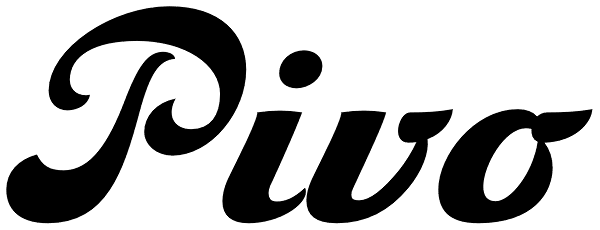
Pivo
The script font Pivo (czech word for Beer) is freely inspired by certain traditional brewery label from southern Bohemia. It is very well suited for any advertising, music, restaurant or beverage design purposes. Punchy, brush-like contours remind...
Pivo
Pivo Shadowed